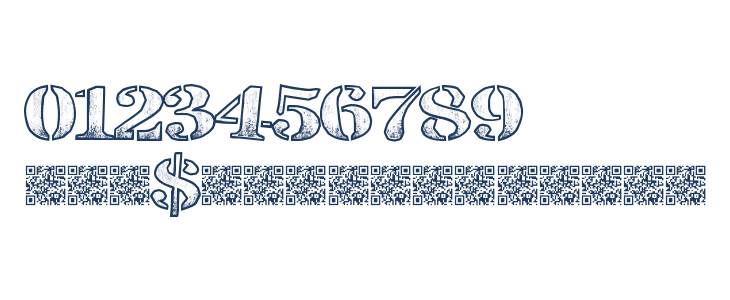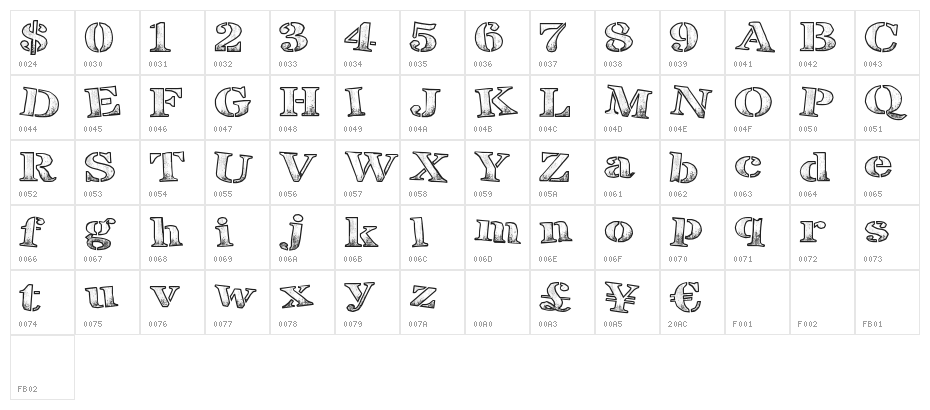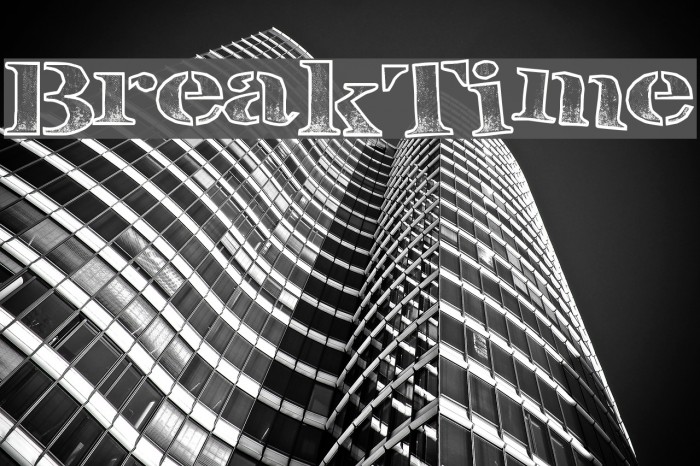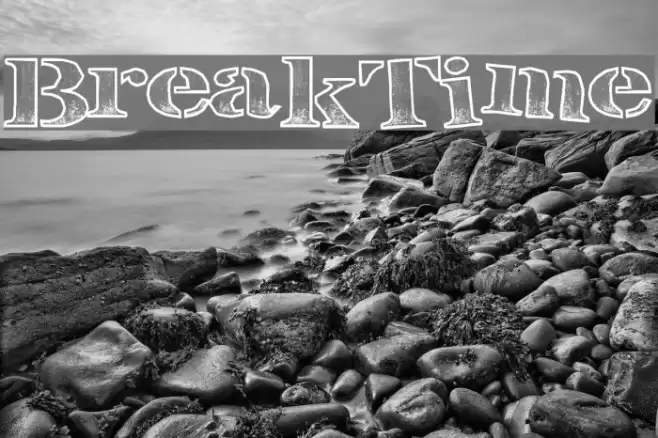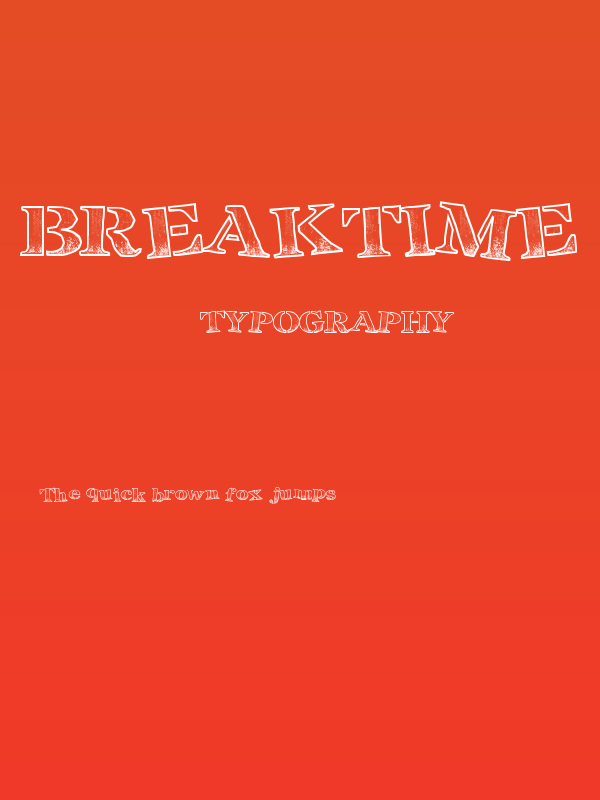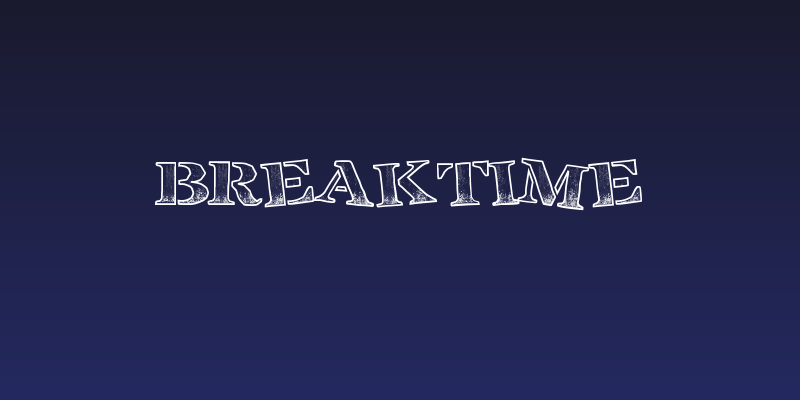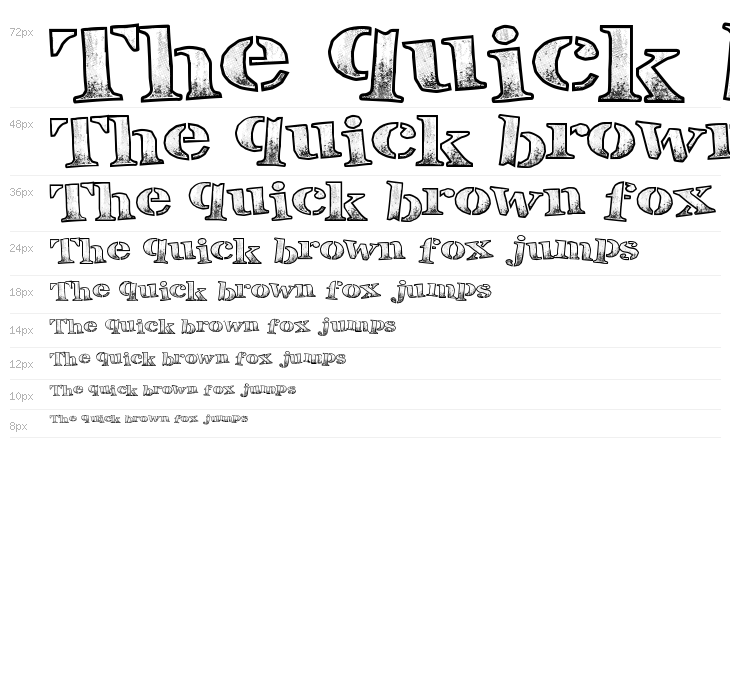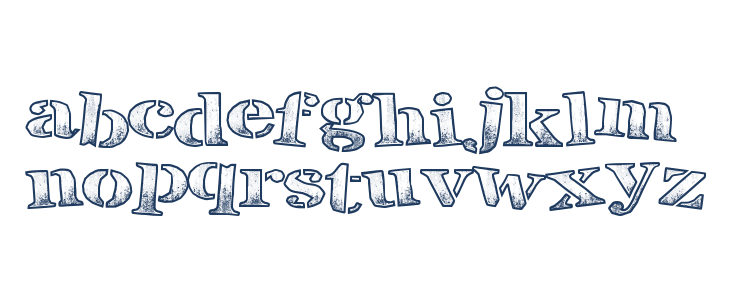
BreakTime Font
BreakTime Description
This font features a bold and playful design with a distressed texture that gives it a vintage and rustic appearance. The characters are uniquely styled with uneven edges and a slightly skewed orientation, adding a dynamic and energetic feel. The uppercase and lowercase letters maintain a consistent style, while the numbers and special characters complement the overall aesthetic. The font's decorative elements make it suitable for eye-catching designs, adding a touch of whimsy and charm.
| Overall Style | Vintage, Decorative |
| Proposed Projects | Ideal for posters, retro-themed designs, branding, and creative projects that require a bold statement. |